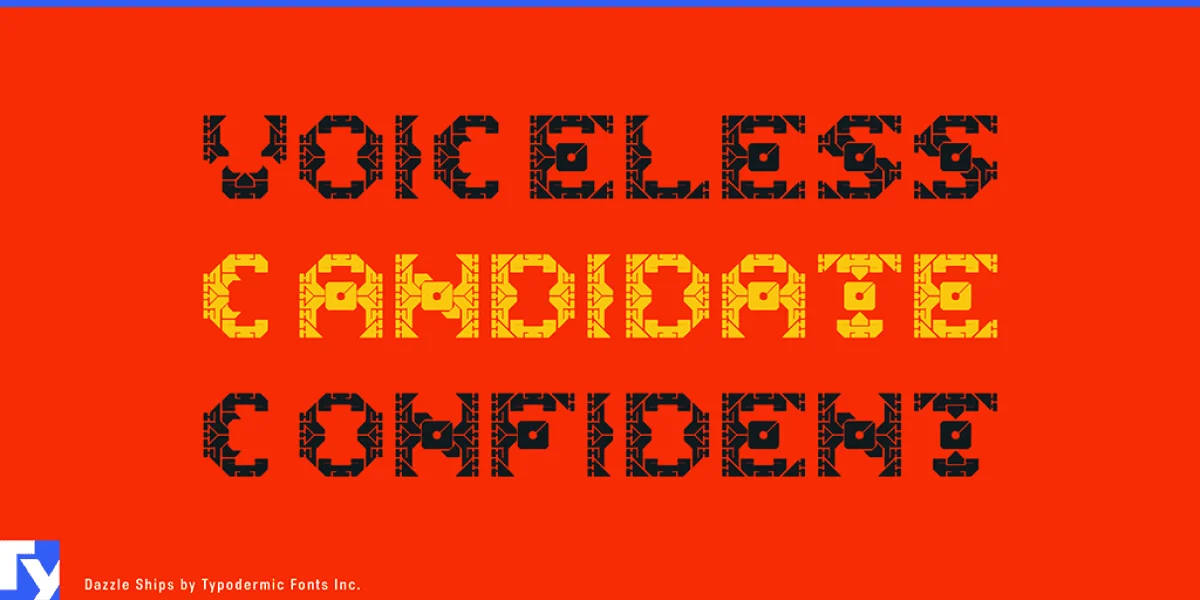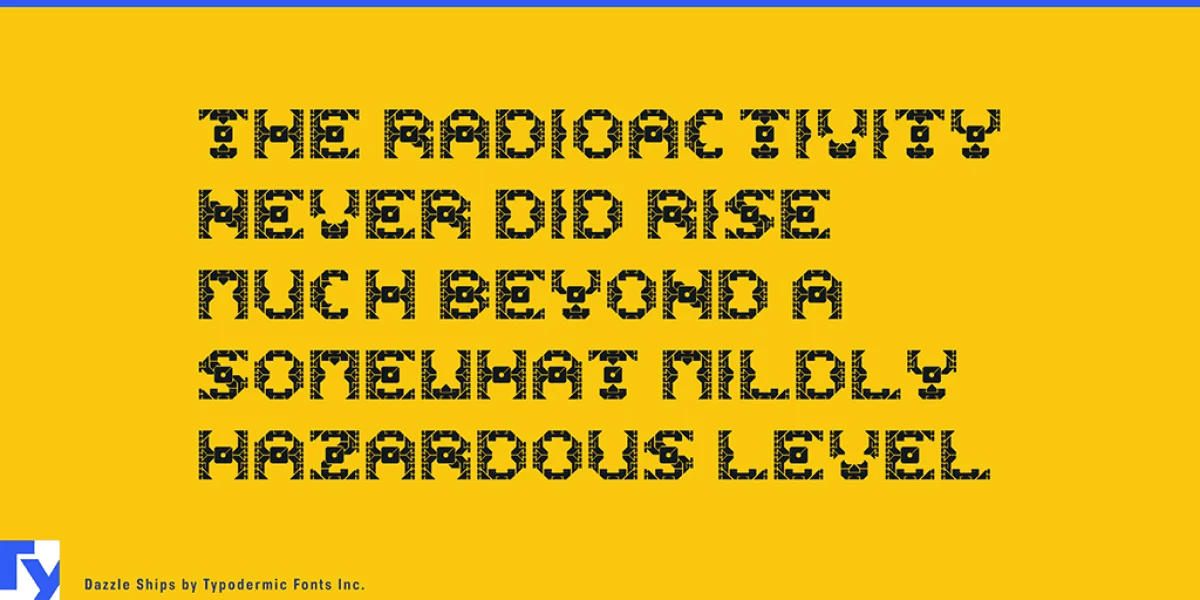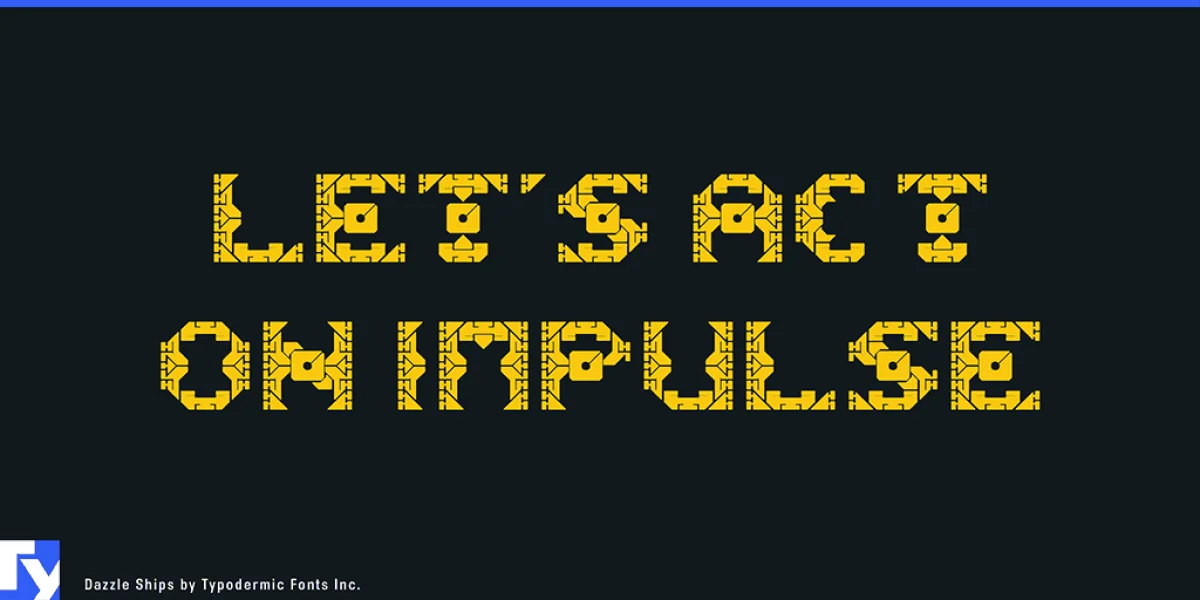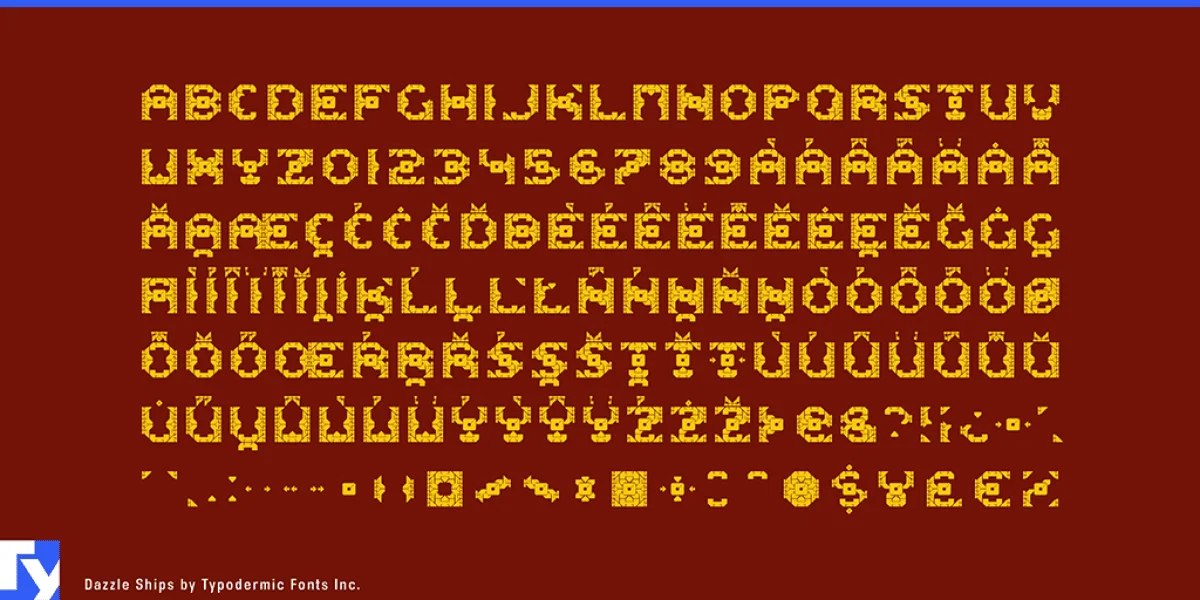
Dazzle Ships is a modular display typeface from undiscovered worlds. It's based on a weird, segmented character scheme that only space aliens comprehend. Most Latin-based European writing systems are supported, including the following languages. Afaan Oromo, Afar, Afrikaans, Albanian, Alsatian, Aromanian, Aymara, Bashkir (Latin), Basque, Belarusian (Latin), Bemba, Bikol, Bosnian, Breton, Cape Verdean, Creole, Catalan, Cebuano, Chamorro, Chavacano, Chichewa, Crimean Tatar (Latin), Croatian, Czech, Danish, Dawan, Dholuo, Dutch, English, Estonian, Faroese, Fijian, Filipino, Finnish, French, Frisian, Friulian, Gagauz (Latin), Galician, Ganda, Genoese, German, Greenlandic, Guadeloupean Creole, Haitian Creole, Hawaiian, Hiligaynon, Hungarian, Icelandic, Ilocano, Indonesian, Irish, Italian, Jamaican, Kaqchikel, Karakalpak (Latin), Kashubian, Kikongo, Kinyarwanda, Kirundi, Kurdish (Latin), Latvian, Lithuanian, Lombard, Low Saxon, Luxembourgish, Maasai, Makhuwa, Malay, Maltese, Māori, Moldovan, Montenegrin, Ndebele, Neapolitan, Norwegian, Novial, Occitan, Ossetian (Latin), Papiamento, Piedmontese, Polish, Portuguese, Quechua, Rarotongan, Romanian, Romansh, Sami, Sango, Saramaccan, Sardinian, Scottish Gaelic, Serbian (Latin), Shona, Sicilian, Silesian, Slovak, Slovenian, Somali, Sorbian, Sotho, Spanish, Swahili, Swazi, Swedish, Tagalog, Tahitian, Tetum, Tongan, Tshiluba, Tsonga, Tswana, Tumbuka, Turkish, Turkmen (Latin), Tuvaluan, Uzbek (Latin), Venetian, Vepsian, Võro, Walloon, Waray-Waray, Wayuu, Welsh, Wolof, Xhosa, Yapese, Zapotec Zulu and Zuni.